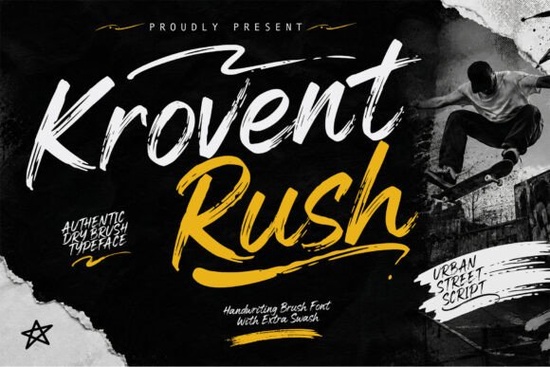
Krovent Rush Font is a standout choice for anyone looking to add a dynamic, urban feel to their design projects. This bold, brush-style typeface captures the essence of city life with its raw energy and expressive strokes. Whether you're working on logos, branding, or social media graphics, Krovent Rush brings a unique visual punch that’s hard to ignore.
Designed with hand-crafted details in mind, Krovent Rush features natural textures and dry brush effects that give it an authentic, artistic touch. Its modern street aesthetic makes it ideal for a wide range of creative applications, from apparel designs to eye-catching posters. The font’s energetic letterforms and bonus swashes create a sense of movement, ensuring your work stands out in a crowded space.
What Makes Krovent Rush Unique?
Krovent Rush isn’t just another font it’s a tool that adds personality and flair to any project. Unlike more traditional typefaces, this font embraces imperfections and organic shapes, making it perfect for those who want to convey a sense of spontaneity and creativity. The subtle variations in each stroke give it a one-of-a-kind look that feels both modern and timeless.
For designers and artists, Krovent Rush offers a fresh alternative to standard fonts. It works well in both digital and print formats, making it versatile for everything from website headers to packaging labels. The font’s ability to blend utility with style means it can be used in almost any creative context without sacrificing readability or impact.
Best Uses for Krovent Rush
If you’re looking to make a strong visual statement, Krovent Rush is an excellent choice. It shines in logo design, where its bold strokes and expressive nature can help define a brand’s identity. For small businesses and print-on-demand sellers, this font can elevate product packaging, marketing materials, and promotional content with a distinctive, eye-catching look.
Graphic designers and social media managers will also appreciate how Krovent Rush enhances visual storytelling. Whether it’s for album covers, Instagram posts, or advertising campaigns, the font’s dynamic appeal ensures your message gets noticed. Its versatility makes it a valuable addition to any designer’s toolkit.
How to Use Krovent Rush Effectively
To get the most out of Krovent Rush, consider pairing it with simpler, more neutral fonts for balance. This helps prevent the design from becoming too overwhelming while still allowing the font to shine. Experimenting with different sizes and spacing can also help highlight its unique characteristics.
When using Krovent Rush in print, pay attention to how it looks at various scales. The font’s texture and detail are best appreciated when it’s large enough to show off its brush-like qualities. For digital use, ensure that the font is properly embedded or licensed to maintain its quality across different platforms.
Whether you’re a designer, craftsperson, or small business owner, Krovent Rush offers a powerful way to express creativity and stand out in a competitive market. Its unique style and versatility make it a valuable asset for any design workflow.
- Pair with simpler fonts for balance
- Test at different sizes for optimal results